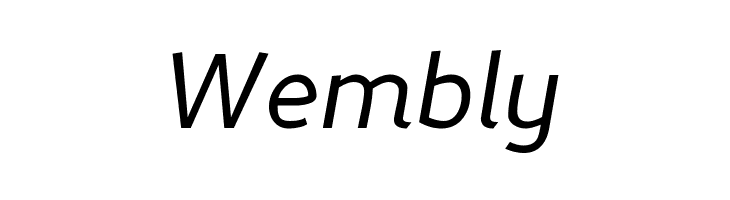
CALDERDALE DEMO Outline Font
- Font: CALDERDALE DEMO Outline
( Fonts by Daniel Midgley )
A modern sans-serif italic font with smooth curves and consistent stroke width.